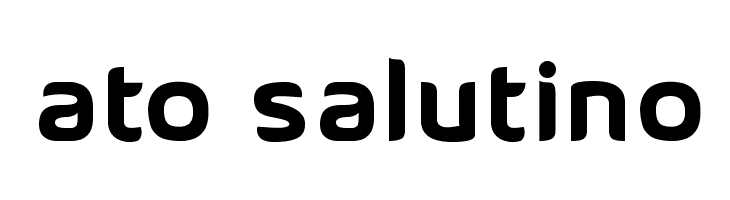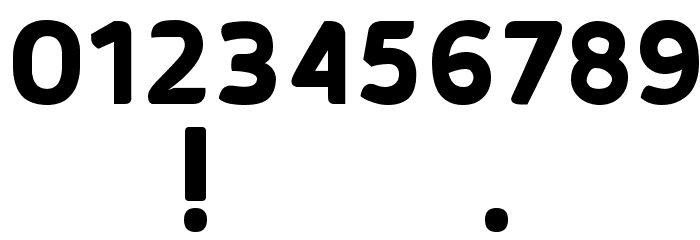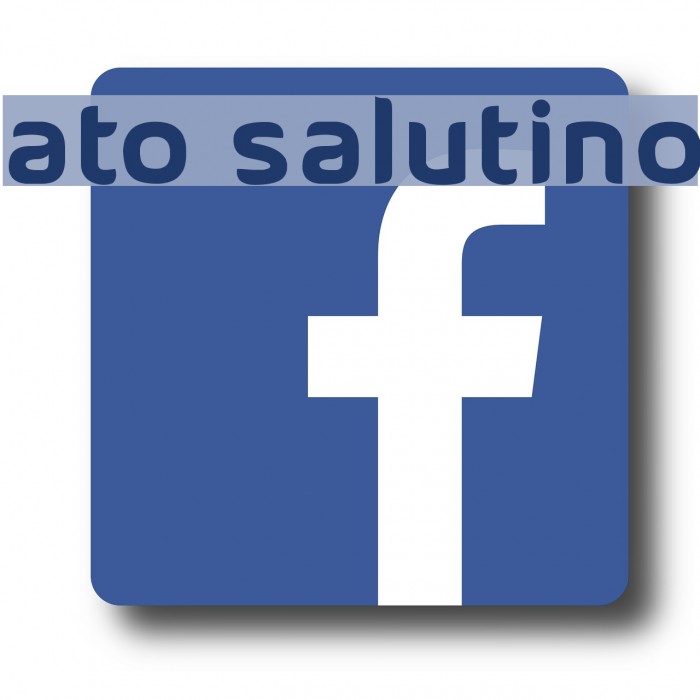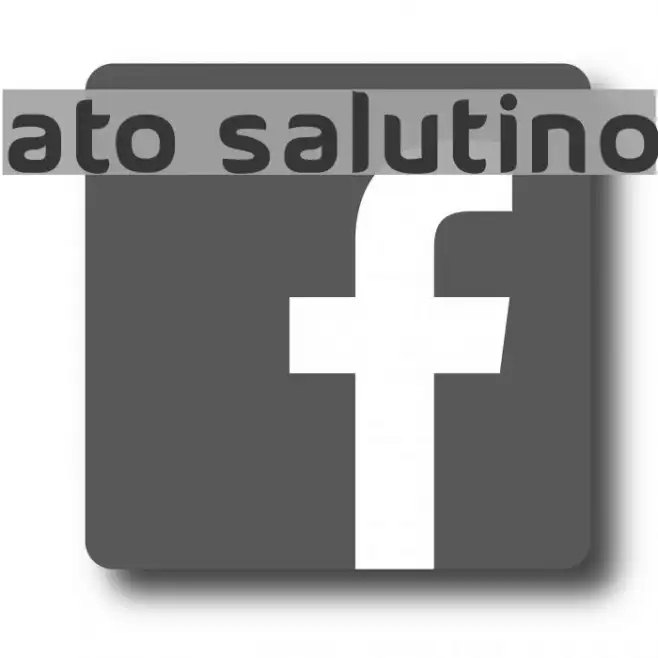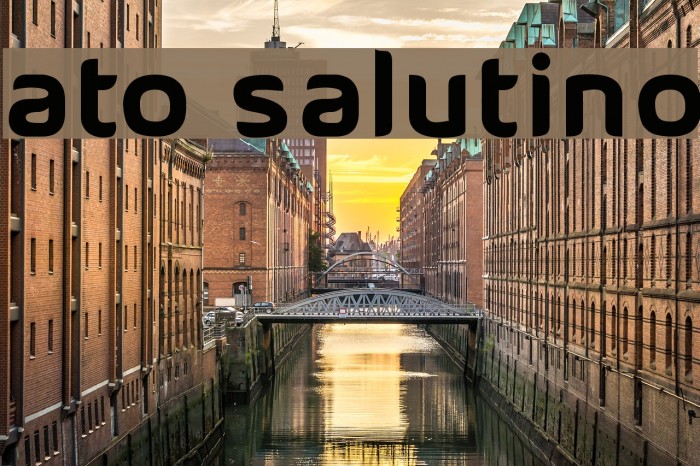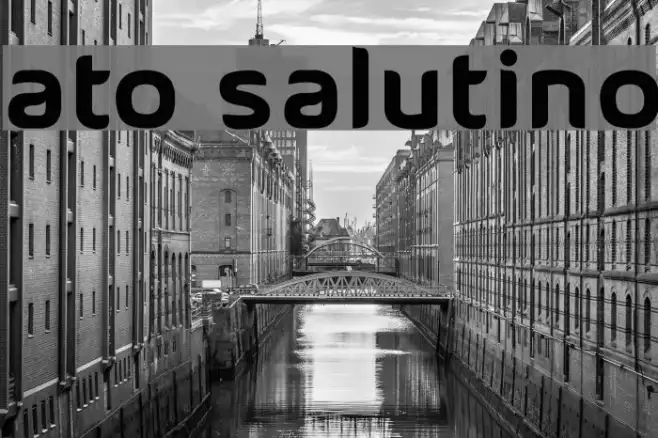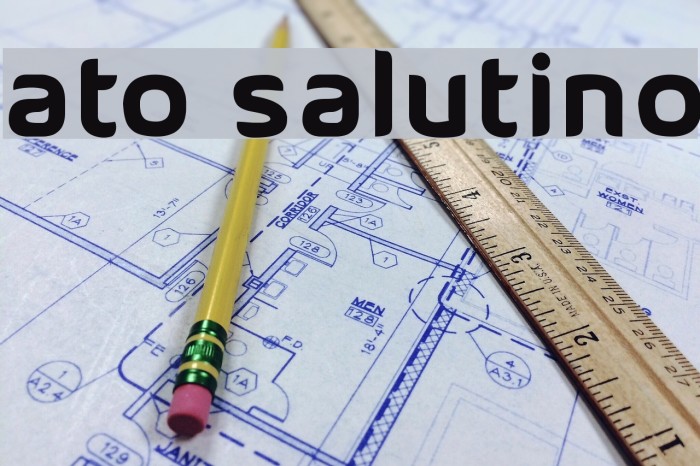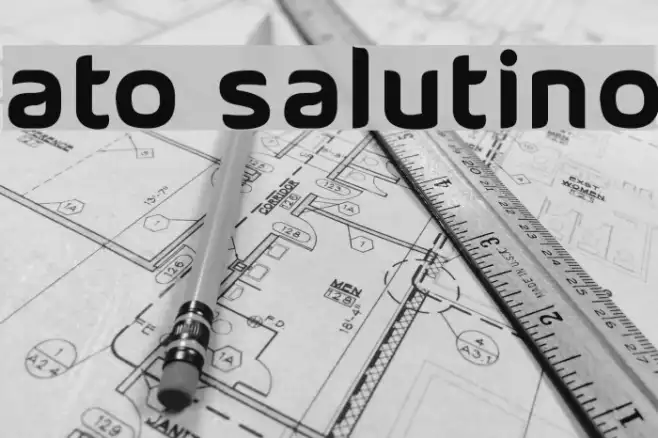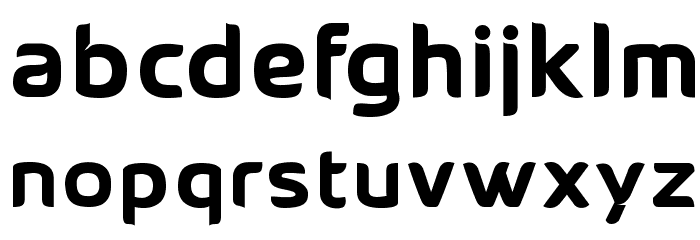
ATO Salutino Font
This font features a bold and rounded design, characterized by smooth curves and a friendly appearance. The letters are evenly spaced, providing a clean and modern look. The rounded terminals and consistent stroke width give it a playful yet professional feel. It's highly legible, making it suitable for various applications. The numerals and special characters maintain the same rounded style, ensuring consistency across all glyphs. This font is versatile, offering a contemporary aesthetic that can enhance both digital and print media.
A bold, rounded font with smooth curves and a modern, friendly appearance.
• Proposed Projects: Ideal for branding, advertising, children's books, and digital interfaces.